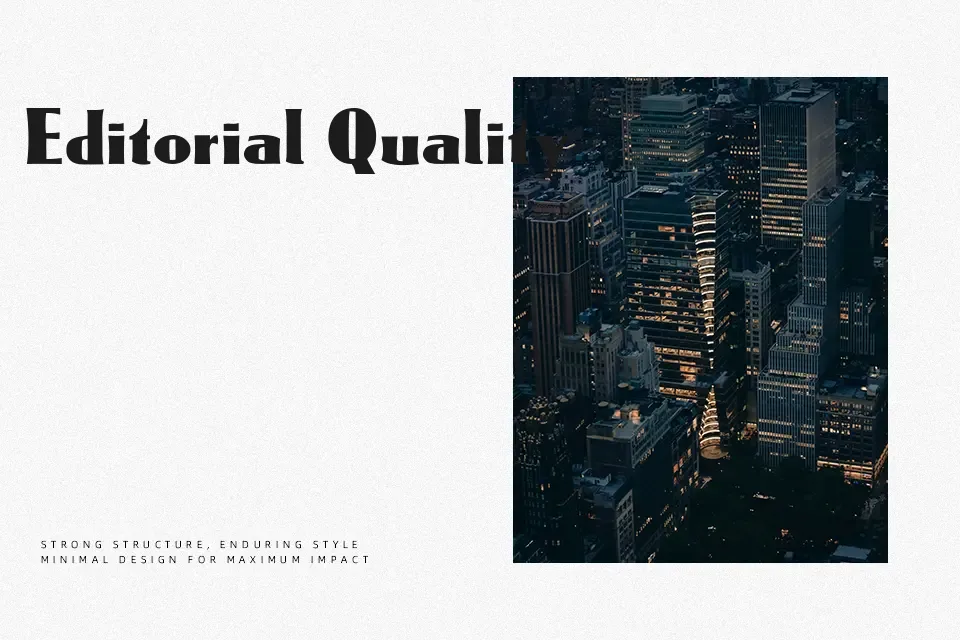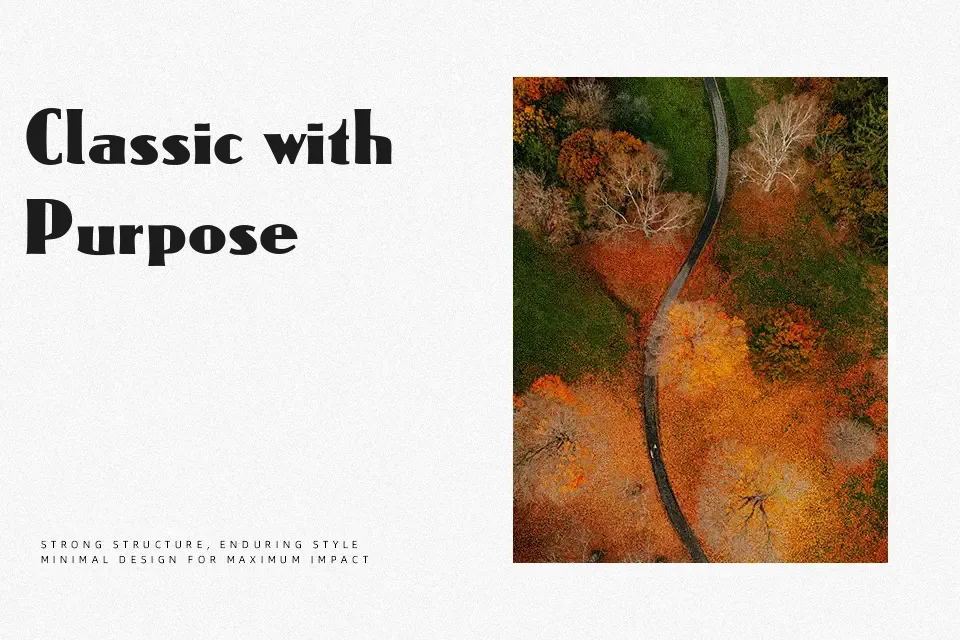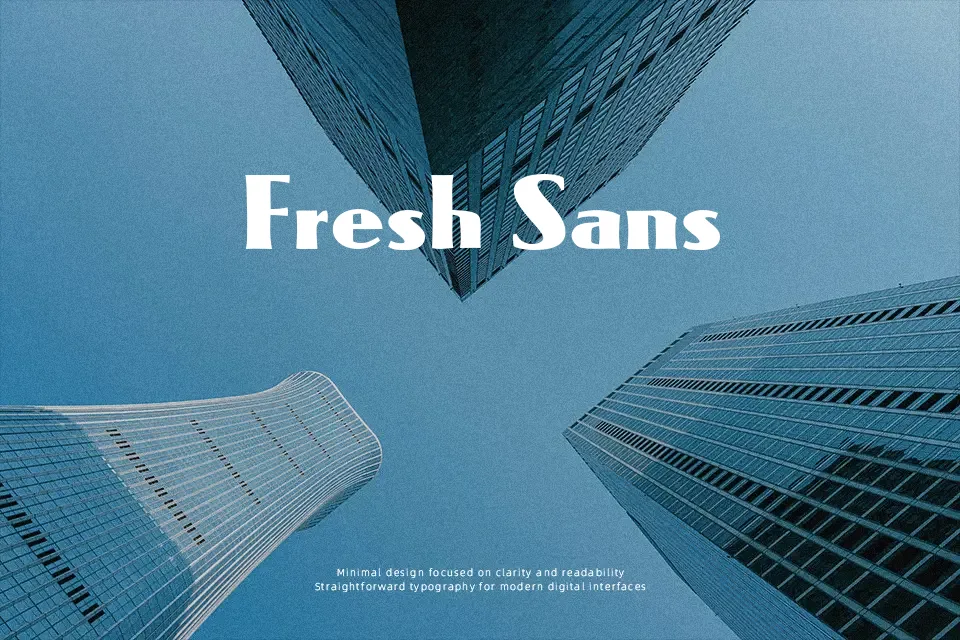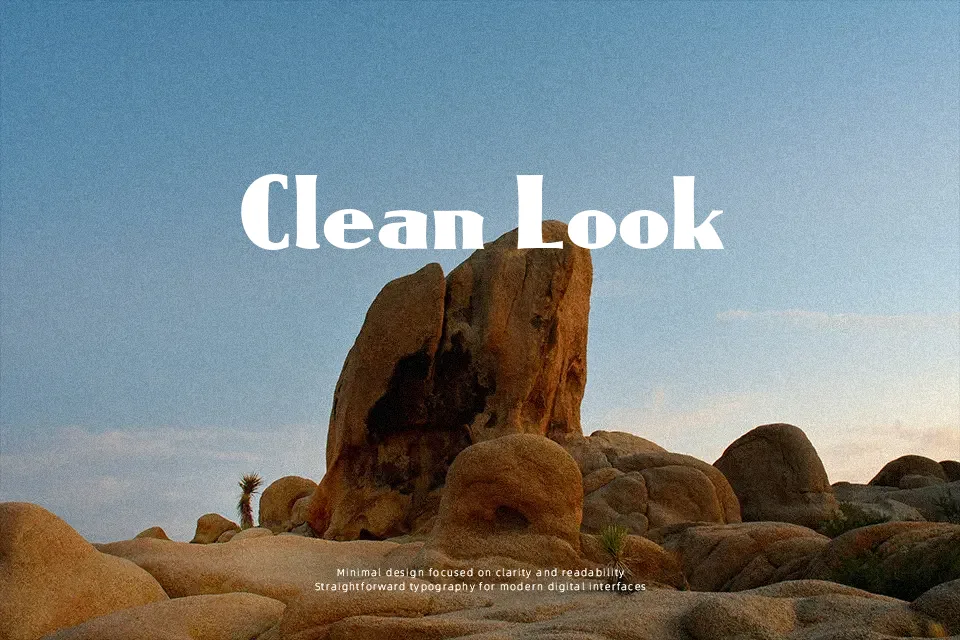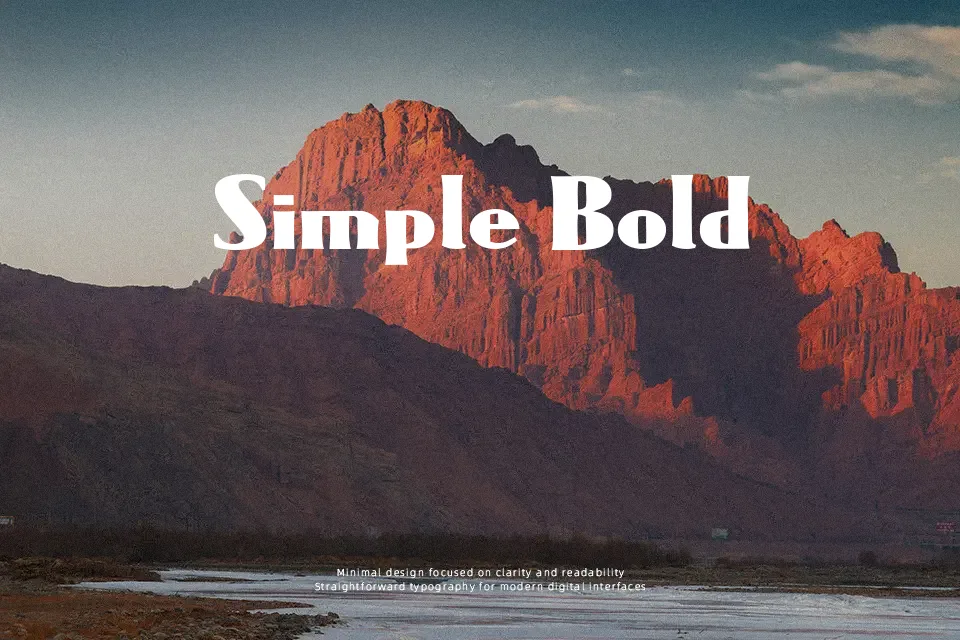
Omega CAT Font
Omega CAT Font works best as a large-scale display face, where its angular retro construction and compact proportions can be read clearly. The letterforms use firm, mostly even strokes with distinctive geometric details that give short words a structured, period-inspired appearance. Spacing appears close but controlled, helping headlines hold together in posters and signs. Its visible character set supports both Latin and Cyrillic text. The design has enough visual character for labels and title treatments, though its unusual forms are less comfortable in small sizes or continuous reading.
Best For: retro poster headlines,vintage shop signage,product packaging labels,album cover titles
Perfect for headline, logo, and packaging, with a bold and condensed style.